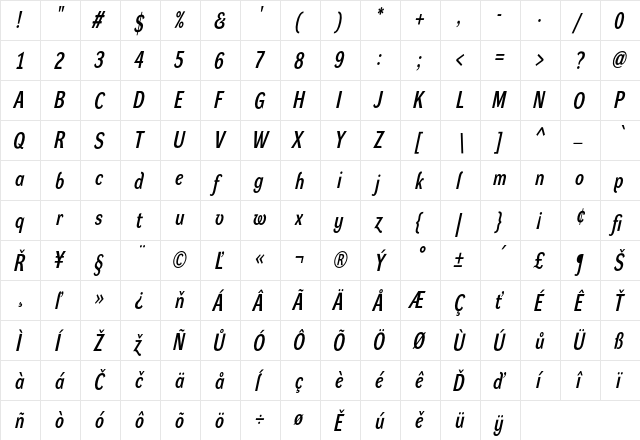
Dynamo DC Regular
Design Context for Dynamo DC Typeface
Dynamo DC takes a measured approach to typography — its balanced proportions and neutral character make it a reliable workhorse for both digital and print work.